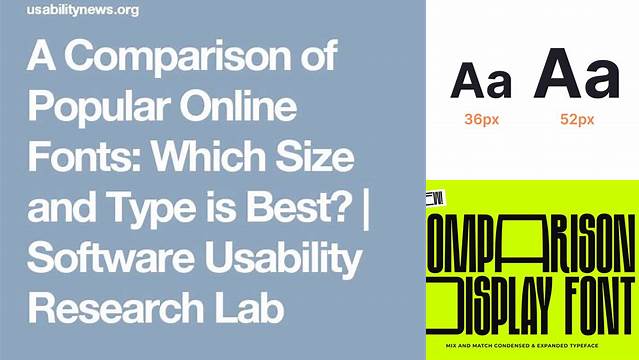
Best Online Fonts: Size And Type Comparison Guide
Choosing the right fonts for your online presence is crucial, guys! It's not just about aesthetics; it's about readability, user experience, and how your brand communicates its message. This comprehensive guide dives into a comparison of popular online fonts, exploring the best sizes and types to use for different platforms and purposes. We'll break down the technical stuff and make it super easy to understand, so you can make informed decisions about your typography.
Why Font Choice Matters
Your font choices can significantly impact how your audience perceives your content. Font choice is important because it influences readability, user experience, and overall brand perception. Think of fonts as the voice of your brand – they convey personality and tone. A poorly chosen font can make your website or document look unprofessional, difficult to read, and even drive visitors away. Conversely, a well-chosen font can enhance readability, engage your audience, and reinforce your brand identity.
Readability is paramount, especially online. Users are often scanning content quickly, so your font needs to be easy on the eyes. Factors like font size, line height, and letter spacing play a crucial role in readability. A font that looks stylish might not be the most practical for large blocks of text. Moreover, different fonts evoke different emotions and associations. A serif font (like Times New Roman) might project a sense of tradition and authority, while a sans-serif font (like Arial) often feels more modern and clean. The right font can strengthen your message, while the wrong one can undermine it. Consistent font usage across your website and marketing materials helps build brand recognition and a cohesive brand identity. When your fonts are consistent, your brand appears more polished and professional, building trust with your audience. In the digital age, where first impressions are formed in seconds, choosing the right font is an investment in your brand's success.
Popular Font Categories: Serif vs. Sans-Serif
Let's dive into the world of popular font categories, specifically serif vs. sans-serif fonts. Understanding the differences between these two font families is key to making the right choices for your projects. Serif fonts are characterized by small decorative strokes, called serifs, at the end of each character. These fonts often convey a sense of tradition, authority, and elegance. Think of classic books, newspapers, and formal documents – you'll often find serif fonts in these contexts. Common examples include Times New Roman, Georgia, and Garamond. The serifs are believed to aid readability in print by guiding the eye across the page, making them a popular choice for long-form text. However, on screens, the serifs can sometimes appear less crisp, especially at smaller sizes or lower resolutions.
Sans-serif fonts, on the other hand, lack these decorative strokes, giving them a cleaner, more modern appearance. They are often associated with simplicity, clarity, and a contemporary feel. Sans-serif fonts are widely used on the web, as their clean lines render well on screens. Popular examples include Arial, Helvetica, and Open Sans. These fonts are particularly effective for headlines, navigation menus, and body text on websites. The absence of serifs makes them generally easier to read on digital devices, especially for users with visual impairments or those reading on smaller screens. Choosing between serif and sans-serif fonts often comes down to the specific context and the message you want to convey. For a traditional or formal look, serif fonts might be the best choice. For a modern, clean aesthetic, sans-serif fonts are often preferred. Many designers also combine serif and sans-serif fonts to create visual contrast and hierarchy, using one for headings and the other for body text. Ultimately, the best choice depends on your specific needs and the overall design of your project. Consider your target audience, the platform you're using, and the desired tone and message when making your font selections.
Top Online Fonts and Their Ideal Sizes
Now, let's explore some top online fonts and discuss their ideal sizes for various applications. Selecting the right font size is just as important as choosing the right font family. A font that's too small can be difficult to read, causing eye strain and a frustrating user experience. A font that's too large can make your content look cluttered and overwhelming. The ideal font size depends on several factors, including the font itself, the platform (desktop, mobile, etc.), and the purpose of the text (headings, body text, captions, etc.). For body text on websites and blogs, a font size of 16 pixels (px) is generally considered the minimum for readability. However, many designers prefer 18px or even larger for improved comfort, especially on high-resolution screens. Popular fonts like Open Sans, Roboto, and Lato perform well at these sizes, offering excellent clarity and legibility.
Headings, on the other hand, require larger font sizes to create visual hierarchy and draw the reader's eye. H1 headings, the main title of a page, are typically the largest, ranging from 32px to 48px or even larger, depending on the design. H2 headings might be around 24px to 36px, and H3 headings 18px to 24px. Using different font sizes for headings helps to structure the content and make it easier to scan. Line height, also known as leading, is another crucial factor in readability. It refers to the vertical space between lines of text. An appropriate line height makes the text easier to read by preventing the lines from appearing too cramped. A general rule of thumb is to use a line height that is 1.4 to 1.6 times the font size. For example, if your body text is 16px, a line height of 22px to 26px would be suitable. Font size and line height work together to create a comfortable reading experience. Experiment with different combinations to find what works best for your specific font and design. Remember to test your font choices on various devices and screen sizes to ensure optimal readability for all users.
Font Pairing: Creating Visual Harmony
Font pairing is the art of combining different fonts in a way that creates visual harmony and enhances the overall design. Using multiple fonts can add visual interest and help to establish a clear hierarchy, but it's essential to do it thoughtfully. A poorly executed font pairing can look jarring and unprofessional, undermining your message. The key to successful font pairing is to choose fonts that complement each other, creating a cohesive and balanced look. One common approach is to pair a serif font with a sans-serif font. This combination can provide a pleasing contrast, with the serif font adding a touch of elegance and tradition, while the sans-serif font brings a modern and clean feel. For example, you might pair a serif font like Georgia for headings with a sans-serif font like Arial for body text. This creates a clear visual distinction between the heading and body content, making the page easier to navigate.
Another strategy is to choose fonts from the same font family but with different weights and styles. For instance, you could use a bold version of a font for headings and a regular version for body text. This approach provides a subtle contrast while maintaining a consistent overall look. Online tools and resources can be incredibly helpful for font pairing. Many websites offer font pairing suggestions and examples, making it easier to find combinations that work well together. When selecting fonts, consider the mood and tone you want to convey. Different fonts evoke different emotions, so it's essential to choose fonts that align with your brand's personality and message. For example, a playful or informal brand might choose a more whimsical font pairing, while a serious or professional brand might opt for a more classic and understated combination. Remember to limit the number of fonts you use on a single page. Using too many different fonts can create a cluttered and chaotic look. Generally, it's best to stick to two or three fonts at most. Experiment with different pairings and test them on various devices and screen sizes to ensure they work well together. Font pairing is an essential aspect of design, and mastering it can significantly elevate the visual impact of your projects.
Platform-Specific Font Considerations
When choosing fonts, platform-specific font considerations are crucial. The best font for a website might not be the best choice for a mobile app, an email, or a printed document. Different platforms have different rendering capabilities and user expectations, so it's essential to tailor your font choices accordingly. For websites, web-safe fonts are a reliable option. These fonts are widely available across different operating systems and browsers, ensuring consistent display for most users. Examples of web-safe fonts include Arial, Times New Roman, Georgia, and Verdana. However, web-safe fonts can sometimes feel a bit generic, and you might want to use more unique fonts to enhance your brand identity.
Web fonts, which are hosted online and loaded dynamically, offer a wider range of options. Services like Google Fonts and Adobe Fonts provide a vast library of high-quality fonts that can be easily embedded in your website. When using web fonts, it's essential to consider loading times. Using too many web fonts or fonts that are too large can slow down your website, impacting user experience. Optimize your web font usage by choosing only the fonts you need and using font formats that are optimized for the web, such as WOFF and WOFF2. Mobile devices have smaller screens and different viewing conditions than desktop computers, so font choices for mobile apps and websites should prioritize readability. Sans-serif fonts generally perform well on mobile devices, as their clean lines are easier to read on smaller screens. Font sizes should also be adjusted for mobile devices, with larger font sizes often necessary to ensure legibility. In emails, font choices are often limited by the capabilities of different email clients. Web-safe fonts are generally the safest option for emails, as they are more likely to display correctly across different email platforms. For printed materials, serif fonts are often a good choice for body text, as the serifs can aid readability in print. However, the best font for a printed document also depends on the specific design and the intended audience. Consider the platform and context when choosing your fonts to ensure optimal readability and visual appeal.
Testing and Implementation Best Practices
Finally, let's discuss testing and implementation best practices for your font choices. Choosing the right fonts is just the first step; you also need to ensure they look good and function well across different devices and browsers. Testing your font choices is crucial to ensure readability and visual appeal. Before launching a website or finalizing a design, test your fonts on various devices, including desktops, laptops, tablets, and smartphones. Check how the fonts render in different browsers, such as Chrome, Firefox, Safari, and Edge. Pay attention to font size, line height, letter spacing, and overall legibility. Ask others to review your designs and provide feedback on the font choices. Fresh eyes can often spot issues that you might have missed. Consider conducting user testing to see how real users interact with your fonts. User testing can provide valuable insights into readability and overall user experience.
When implementing your font choices, use CSS to define the fonts for your website. CSS allows you to specify font families, sizes, weights, and styles. Use a consistent font stack to ensure fallback fonts are available if the primary font fails to load. A font stack is a list of fonts that the browser will try to use, in order, if the preferred font is not available. Start with your preferred font, followed by similar fonts and finally a generic font family (serif, sans-serif, monospace). Optimize your font loading to minimize website loading times. Use font formats that are optimized for the web, such as WOFF and WOFF2. Consider using font-display properties in CSS to control how fonts are displayed while they are loading. The font-display property allows you to specify a fallback font while the web font is loading, preventing a blank screen or a flash of unstyled text. Regularly review your font choices and make adjustments as needed. As design trends evolve and technology changes, you might need to update your fonts to maintain a modern and professional look. Stay informed about the latest font trends and best practices, and don't be afraid to experiment with new fonts and font pairings. By following these testing and implementation best practices, you can ensure that your font choices enhance the user experience and contribute to the success of your projects.